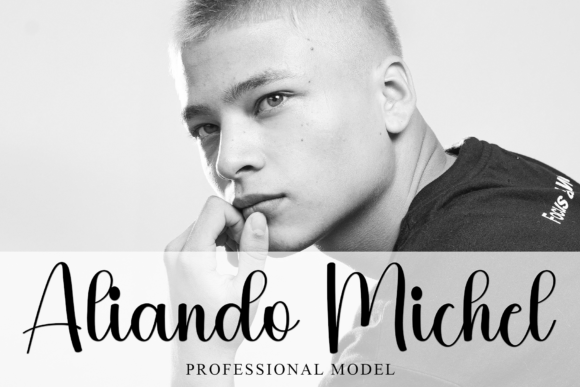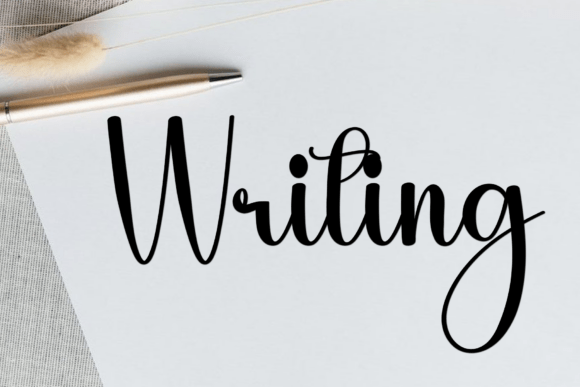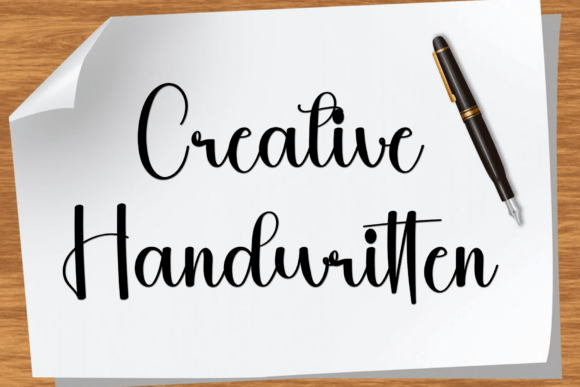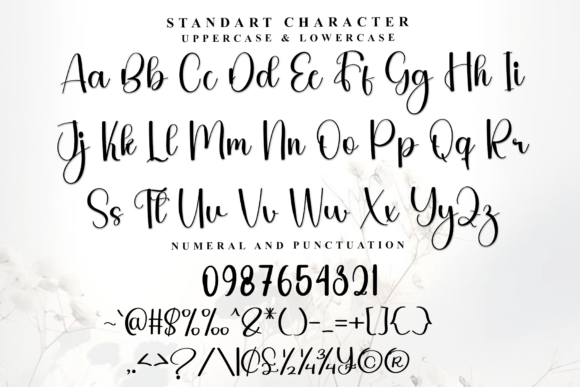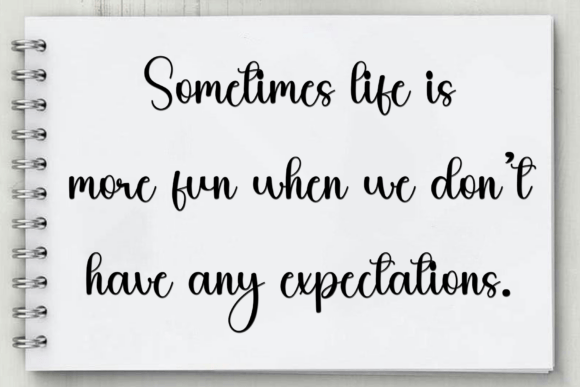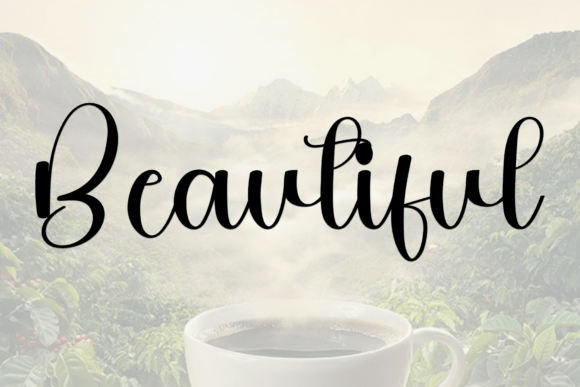
Deck the Halls with the Perfect Font: Buttersugar Font
It’s that time of the year again – the holiday season is upon us, and with it, the excitement of creating special memories with loved ones. As a designer, you’re likely no stranger to the joy of crafting custom greeting cards, gift tags, and other festive projects. But have you ever felt like something was missing – a dash of magic that would elevate your typography to the next level?
Enter the Buttersugar Font, a festive and merry typeface that captures the essence of the holiday season. This enchanting font is designed to add a touch of whimsy and nostalgia to your designs, making it perfect for holiday-themed projects. With its decorative elements and PUA encoding, you’ll have access to a world of amazing glyphs and ligatures that will make your typography shine like never before.
Buttersugar Font Key Features
- Unique Characteristics: This font is a modern, elegant script with a unique blend of cursive and sans-serif elements, making it perfect for creative and artistic projects.
- Font Style: Script, cursive
Buttersugar Font Review
I recently had the chance to work with the Buttersugar Font, and I must say it’s a unique addition to any design project. ✨ The font’s playful, whimsical feel is perfect for creating eye-catching headlines and titles. The subtle imperfections and textured look add a touch of warmth and personality to your designs.
One of the things that stands out about Buttersugar is its versatility. ✨ It works well in a variety of settings, from modern websites and apps to children’s books and educational materials. The font’s flexibility is a major plus, making it a great choice for designers who need a font that can adapt to different contexts.
- Playful, whimsical feel
- Subtle imperfections and textured look
- Versatility in different design settings
- May not be suitable for formal or professional designs
- Can be difficult to read in small font sizes
- Limited character set (some users may find it lacking)
- ⚠️ Limited language support (not ideal for multilingual designs)
Overall, I think Buttersugar is a great choice for designers who want to add some personality to their projects. While it may not be perfect for every situation, it’s a valuable addition to any design toolkit.
For the best results, use Buttersugar Font for titles, headings, and other large text elements. It’s also great for creating a vintage or distressed look in your designs.
Experiment with different font sizes, colors, and styles to achieve unique and eye-catching effects.